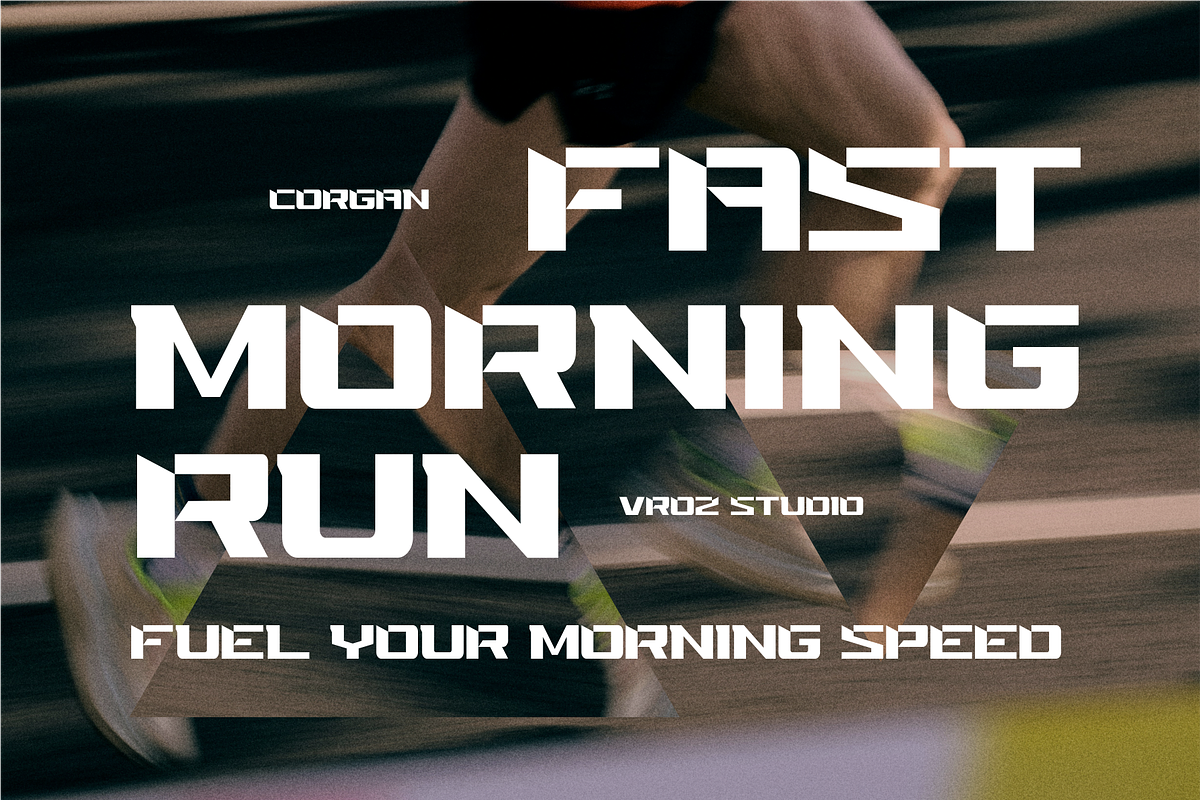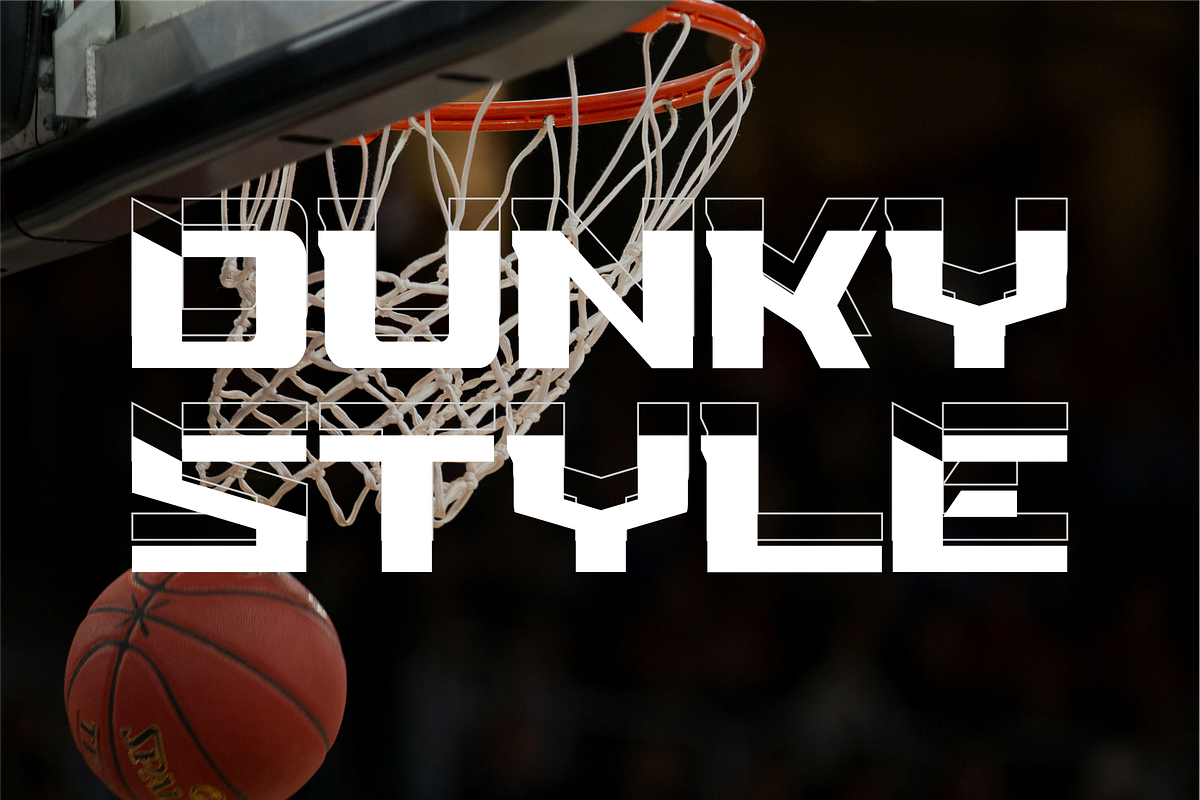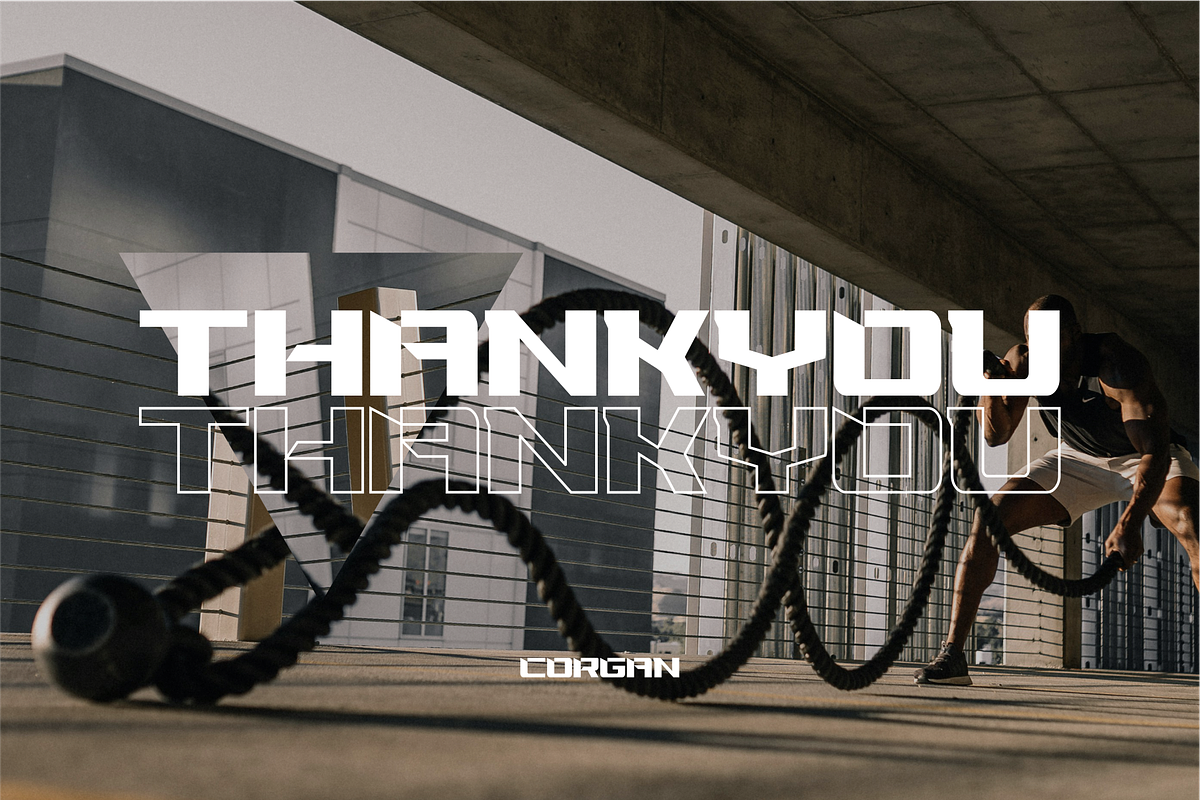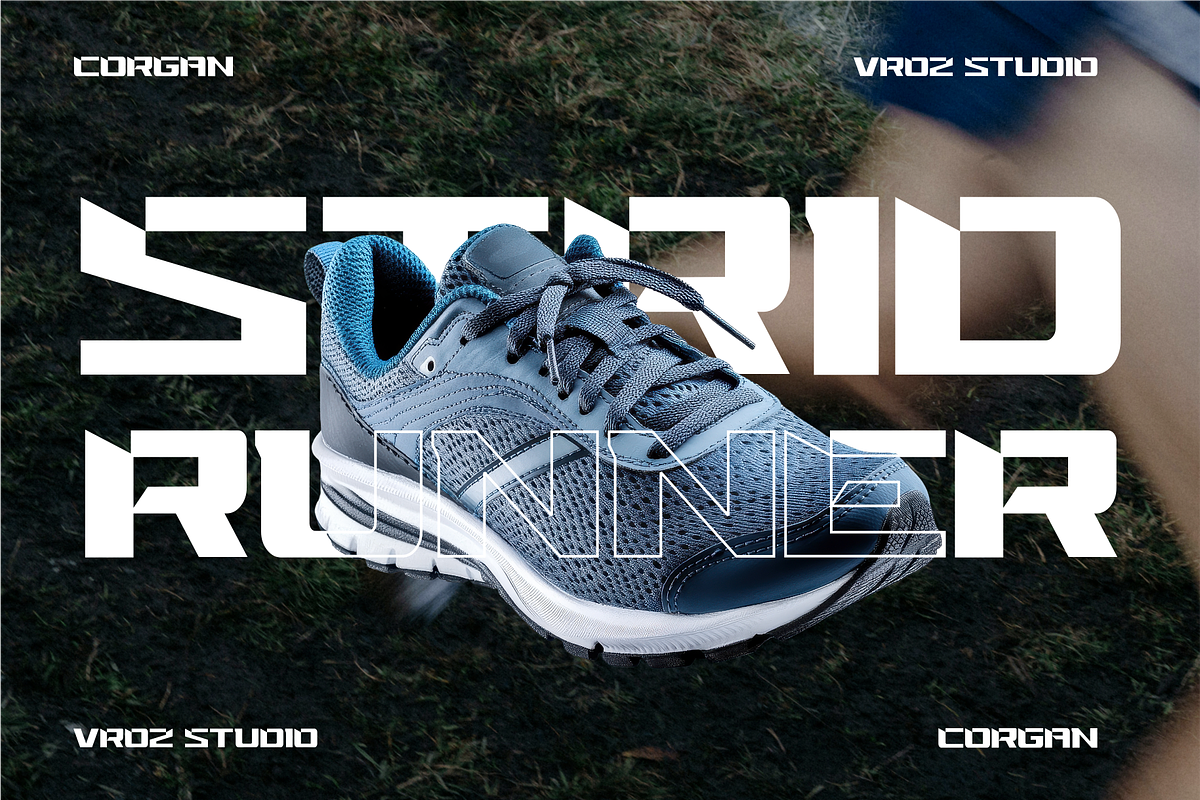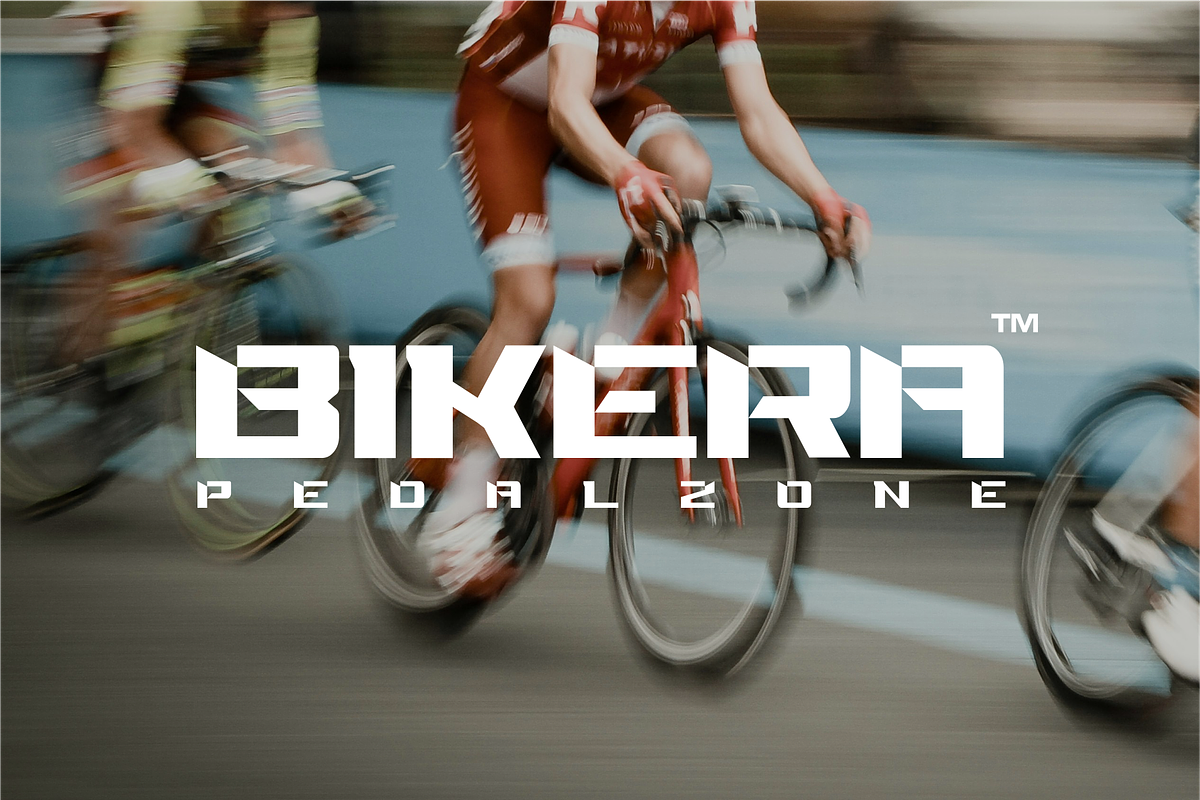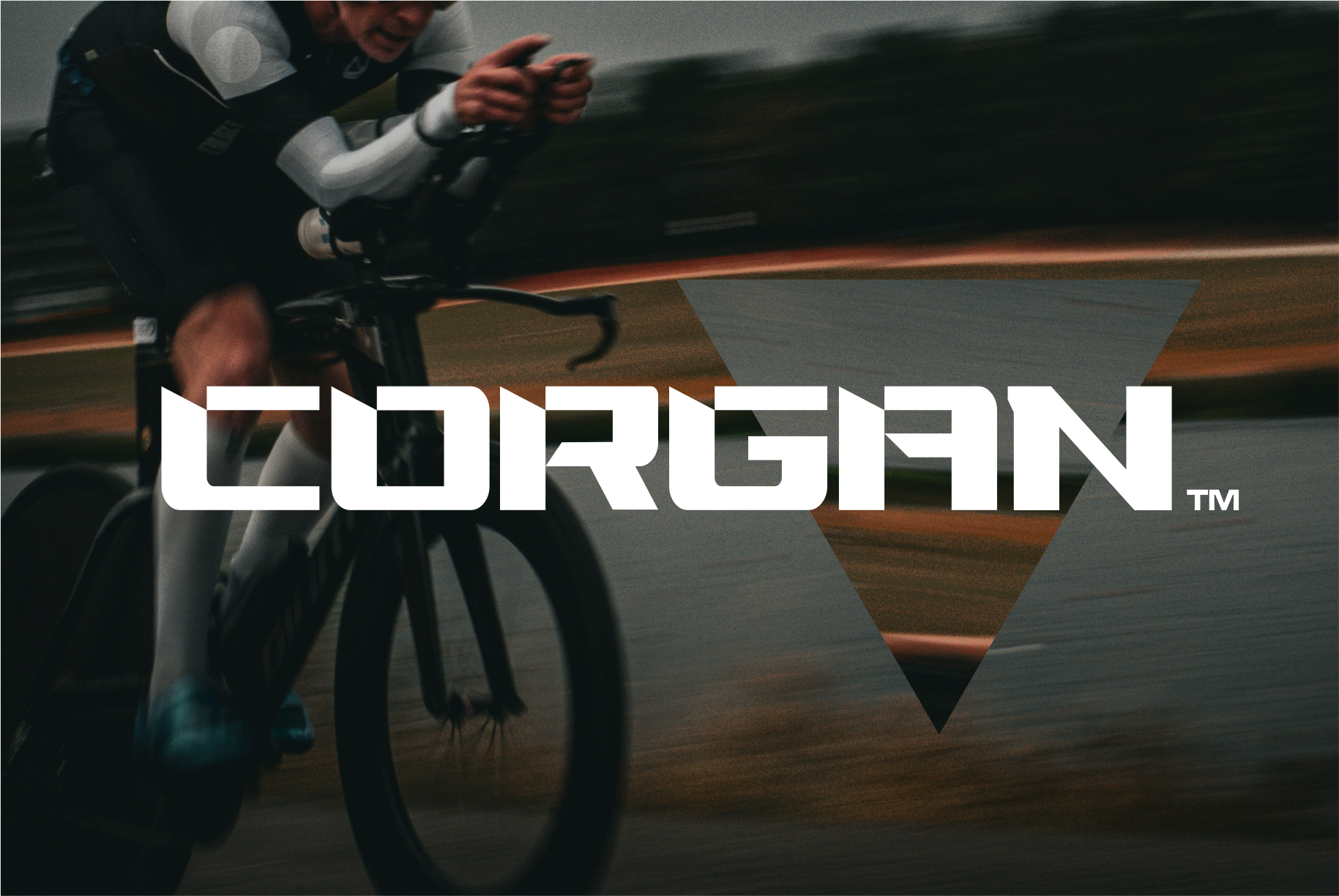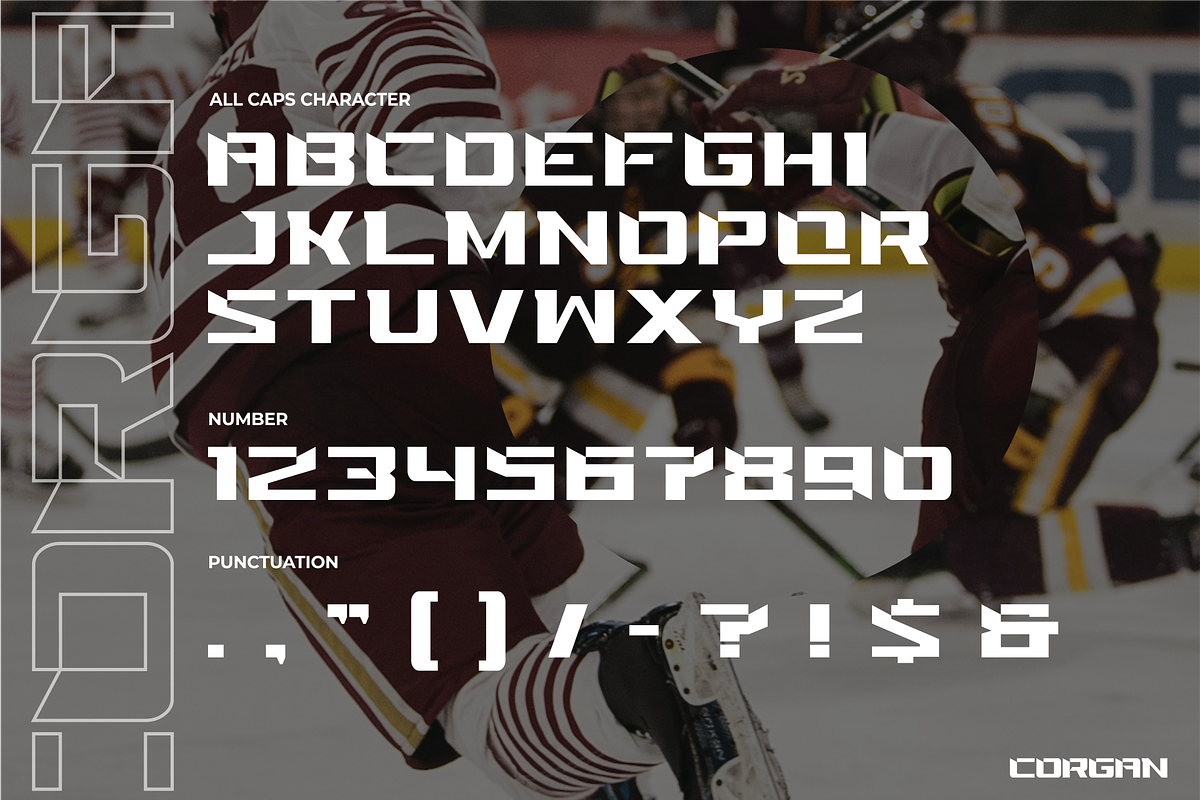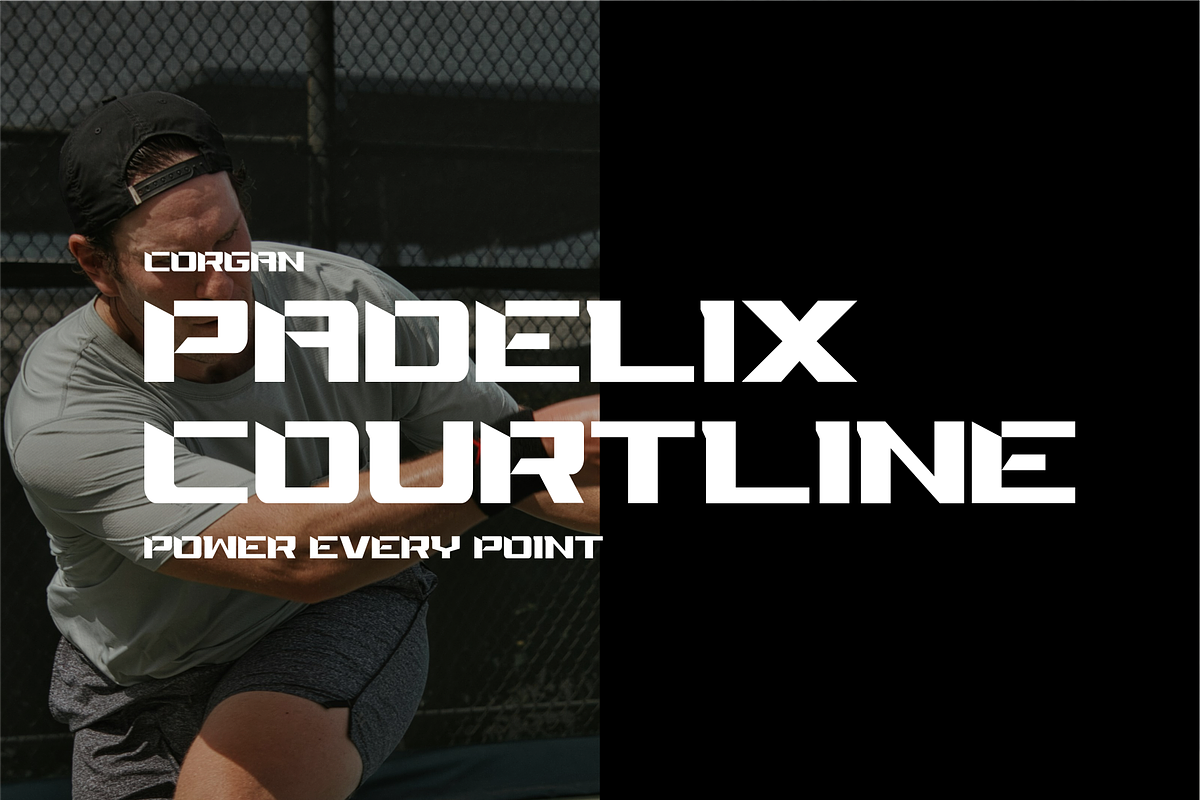
Corgan - Sports Display Font
Corgan Sports is a dynamic display typeface inspired by modern athletics, motorsport culture, and high-performance branding. Featuring sharp edges, streamlined forms, and a bold futuristic character, this font is designed to bring a sense of motion, strength, and determination to every project.
Perfect for sports logos, racing themes, esports identities, fitness branding, event graphics, and energetic social media content, Corgan Sports creates a powerful visual impact that stands out in competitive environments.
Its strong and versatile design makes it ideal for eye-catching headlines, team branding, promotional materials, product labels, and any creative work that demands a fast, bold, and professional appearance.
\* Uppercase
\* Numerals & Punctuation
\* Multilingual Support
\* OpenType Features
Bring speed, confidence, and modern athletic style to your designs with Corgan Sports.